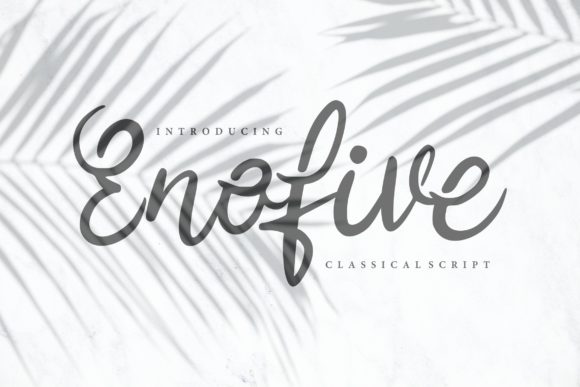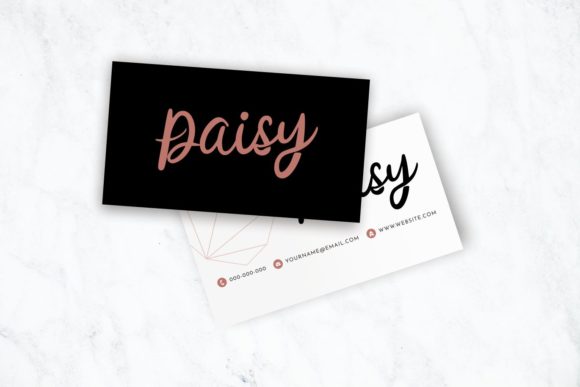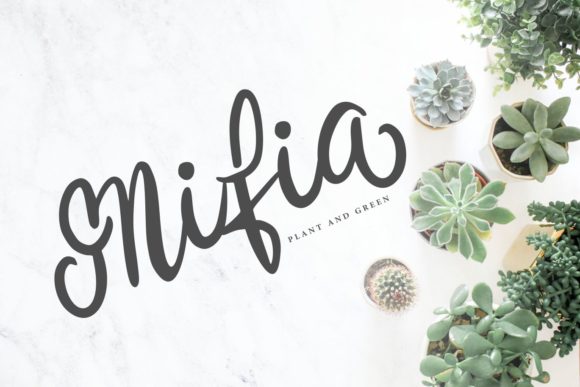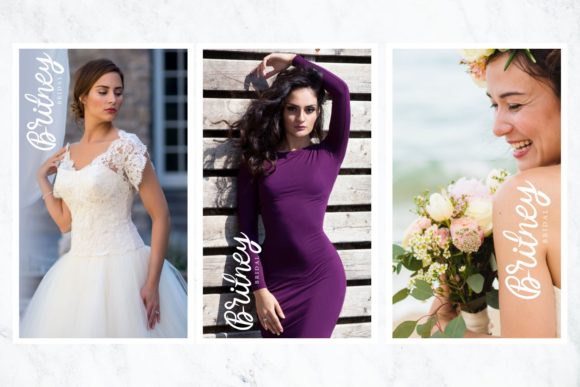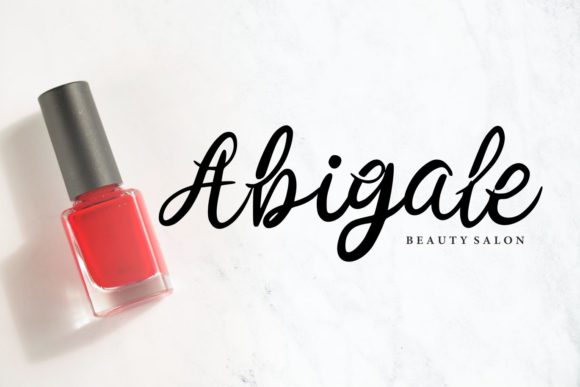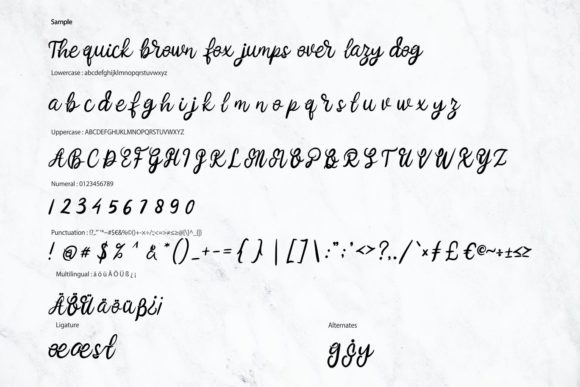
Enofive Font
About Enofive Font
Enofive updates classic calligraphy with a modern spin. This organic and incredibly harmonious script will turn any design project into a true standout!